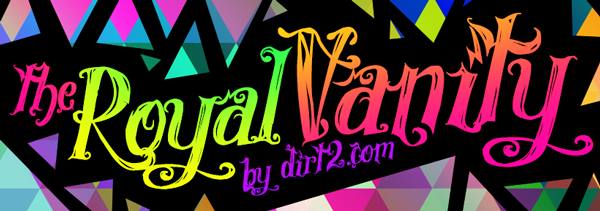
Preview and download Royal Vanity Font. Created by Dirt2.com - SickCapital in Gothic Various styles with Free for personal use license.
A calligraphic font with some splitting details, sort of gothic and sort of script - I hope you enjoy. You can purchase this font for commercial use at SickCapital.com Visit Dirt2.com for Photoshop Brushes, Vectors and More Fonts! |